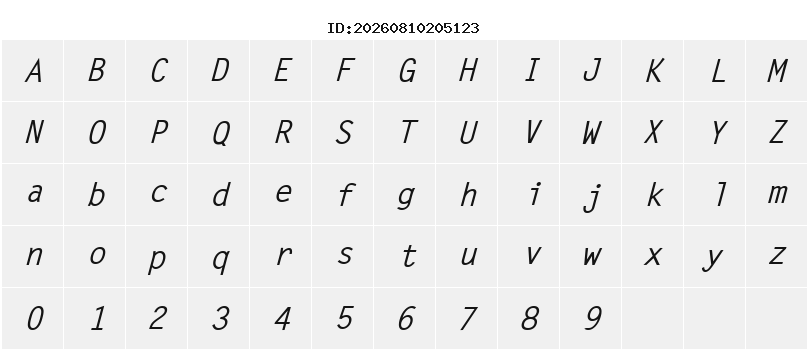
QTLetterGoth Preview
• Font Name: QTLetterGoth
• Font ID: QualiType TrueType font QTLetterGoth Bold Italic
• Full Font Name: QTLetterGoth Bold Italic
• Version: QualiType TrueType font 10/4/92
• PostScript Name: QTLetterGoth-BoldItalic
• Character Count: 230
About QTLetterGoth.ttf
QTLetterGoth.ttf is a modern, elegant sans-serif font designed for ultimate readability and visual harmony. Perfect for branding, headlines, web design, and print materials.